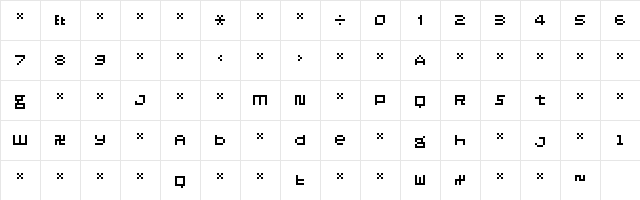
Laoism Deviant Regular
Design Context for Laoism Deviant Typeface
Laoism Deviant takes a measured approach to typography — its balanced proportions and neutral character make it a reliable workhorse for both digital and print work.